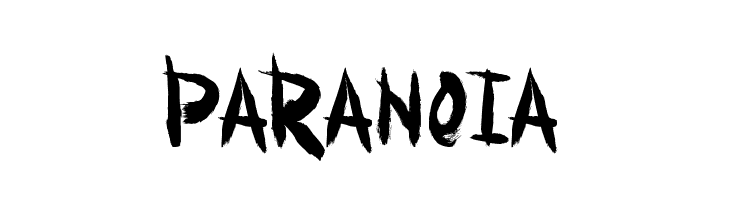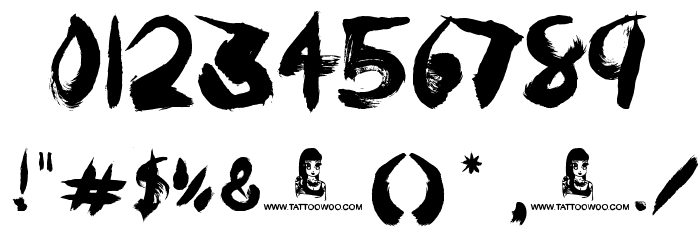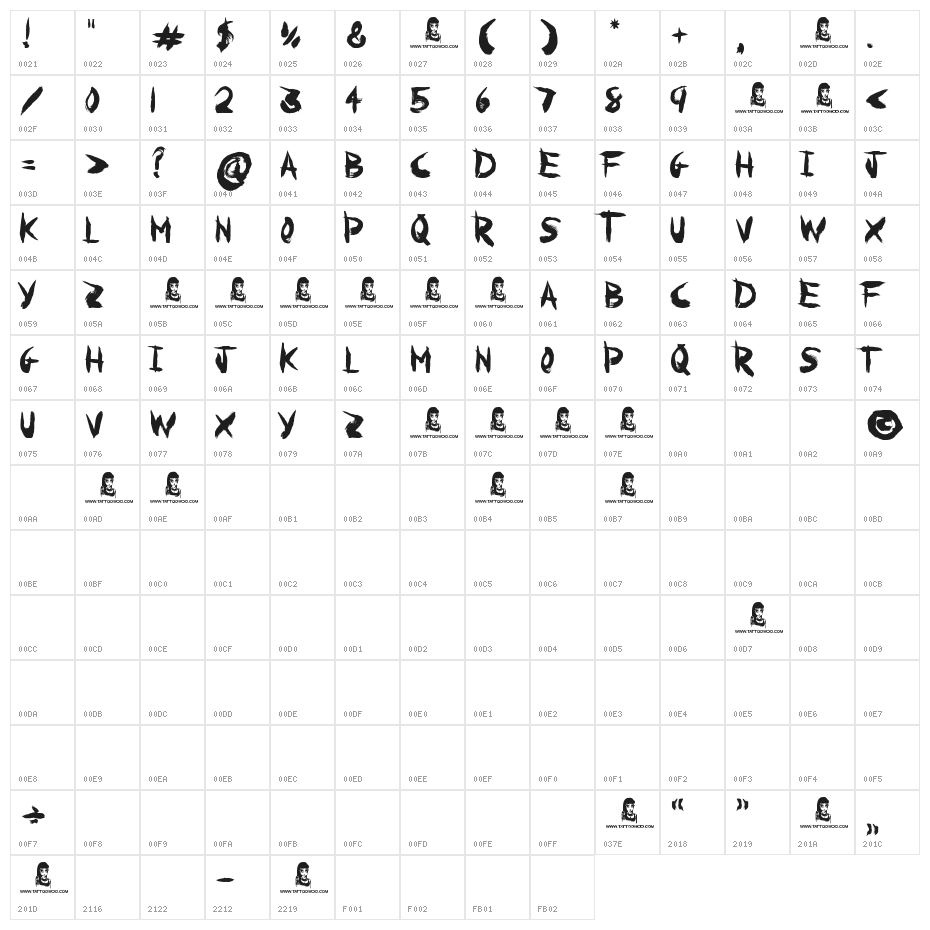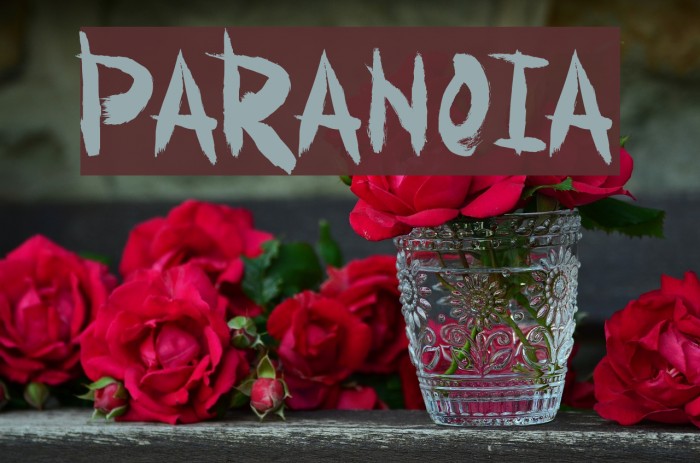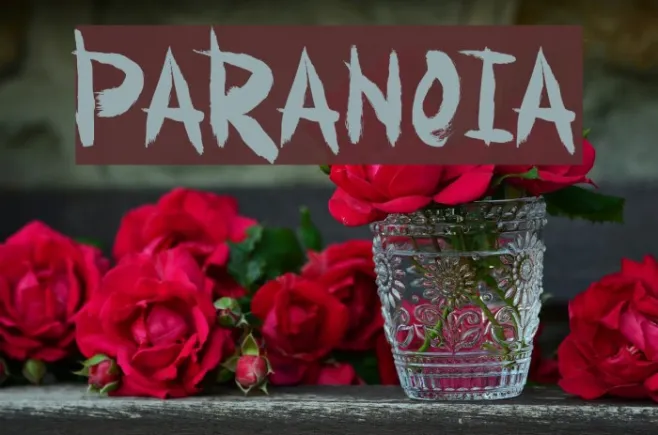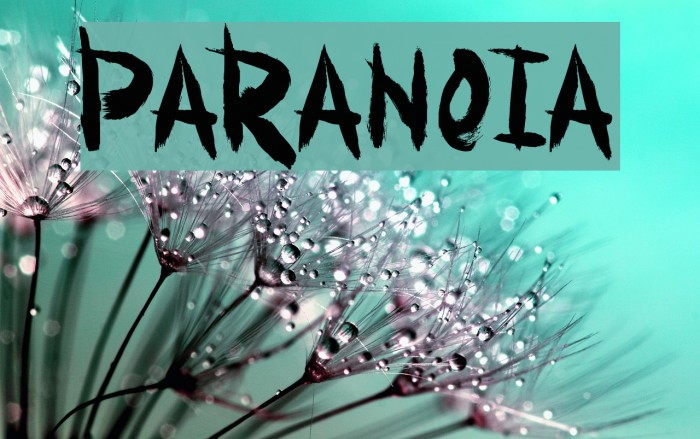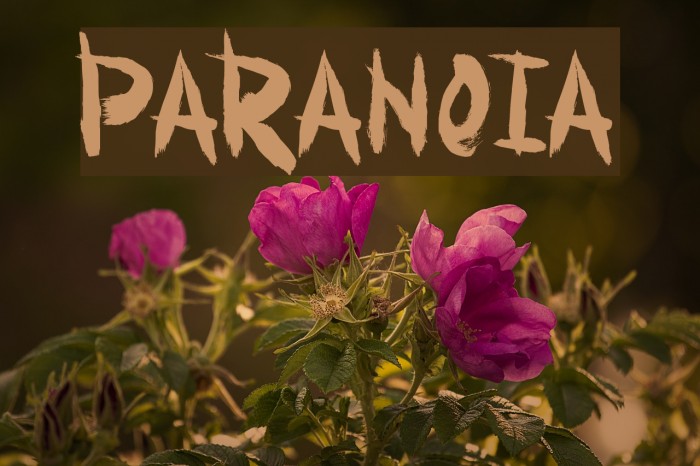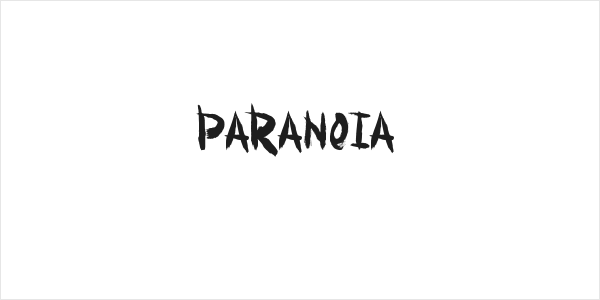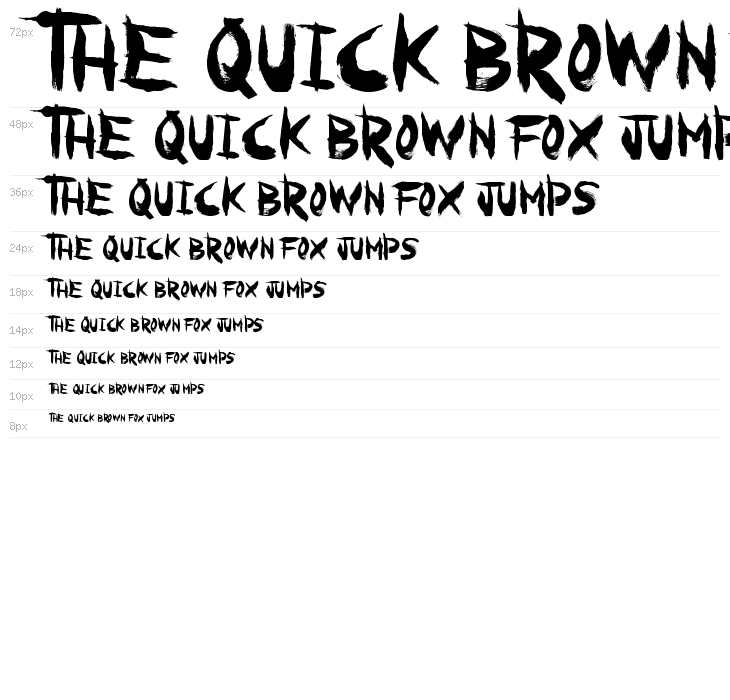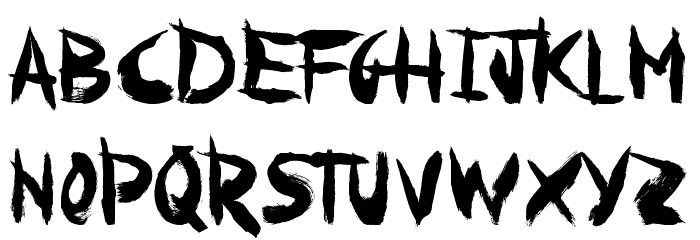
Paranoia Font
Paranoia Description
This font features a bold and expressive brushstroke style, characterized by its dynamic and energetic appearance. The letters are crafted with a rough, textured edge, giving them a raw and artistic feel. The uppercase and lowercase letters maintain a consistent style, with exaggerated strokes and varying thicknesses that add to the font's dramatic flair. Numbers and special characters are equally bold, ensuring a cohesive look across all text elements. This font's unique style makes it stand out, ideal for projects that require a strong visual impact.
| Proposed Projects | Ideal for posters, album covers, branding projects, and any design requiring a bold, artistic touch. |